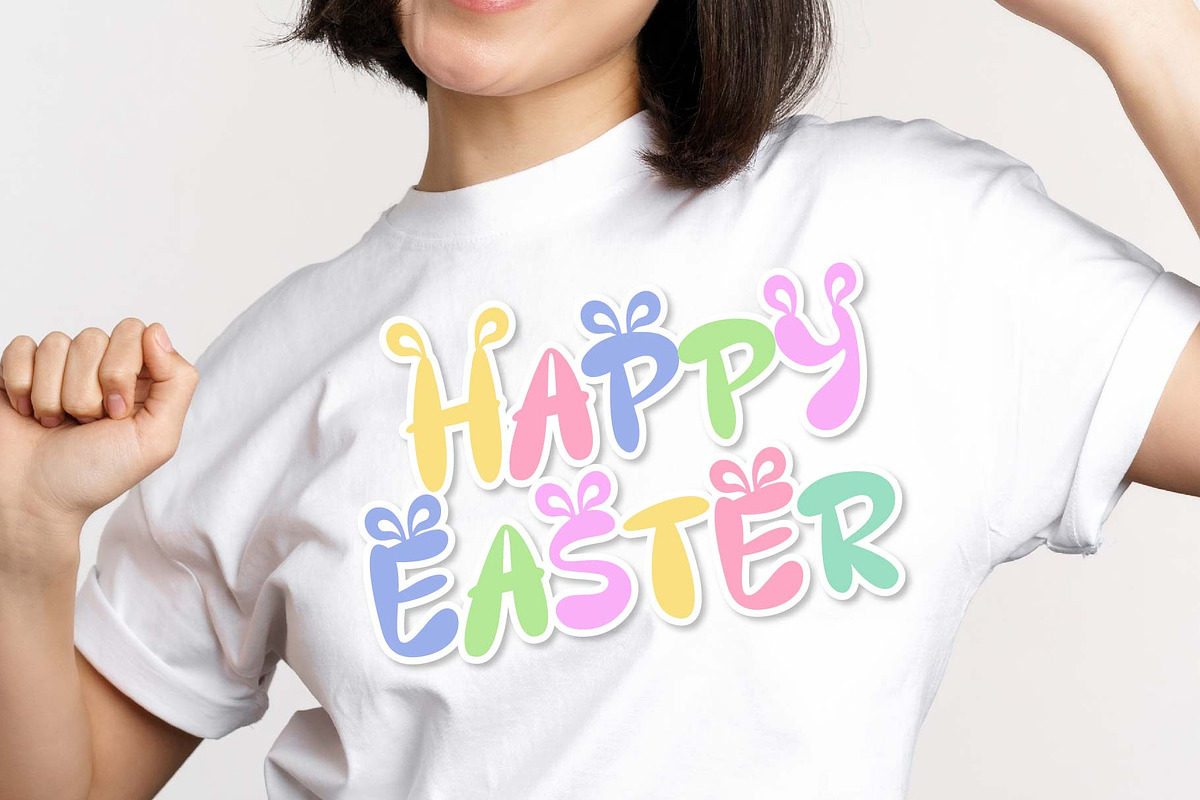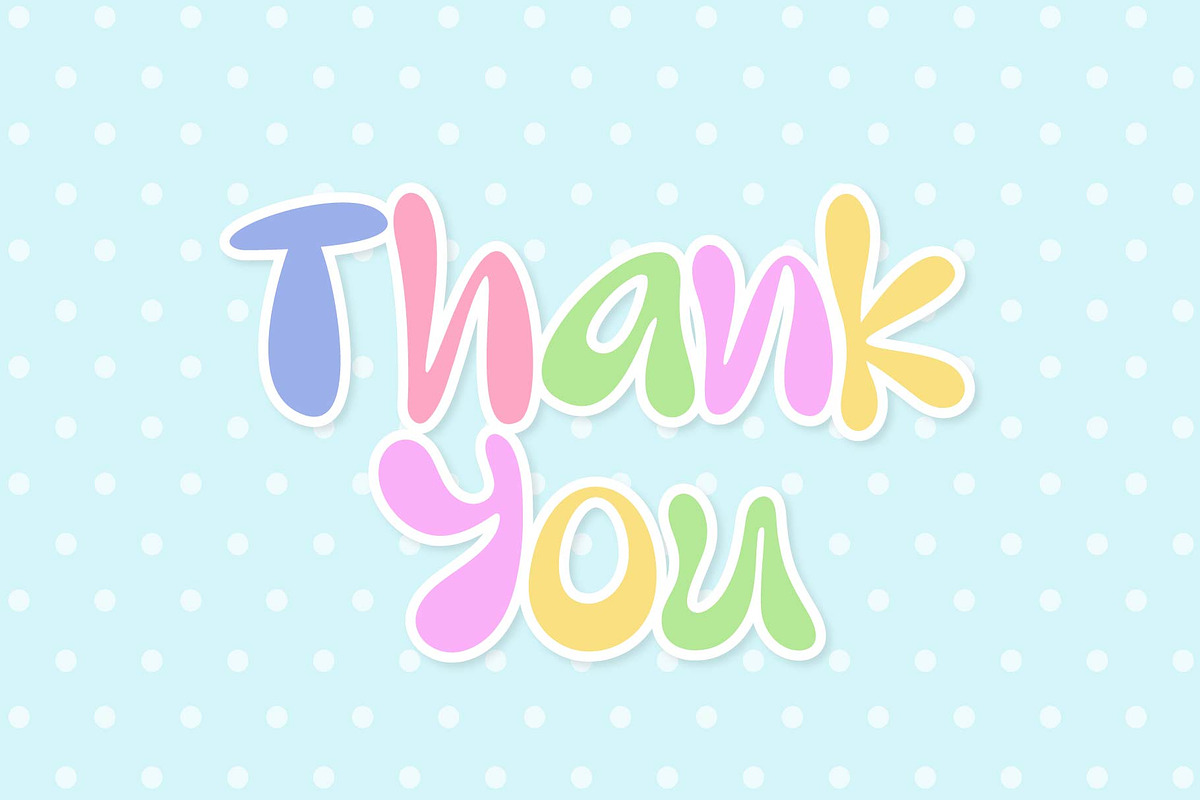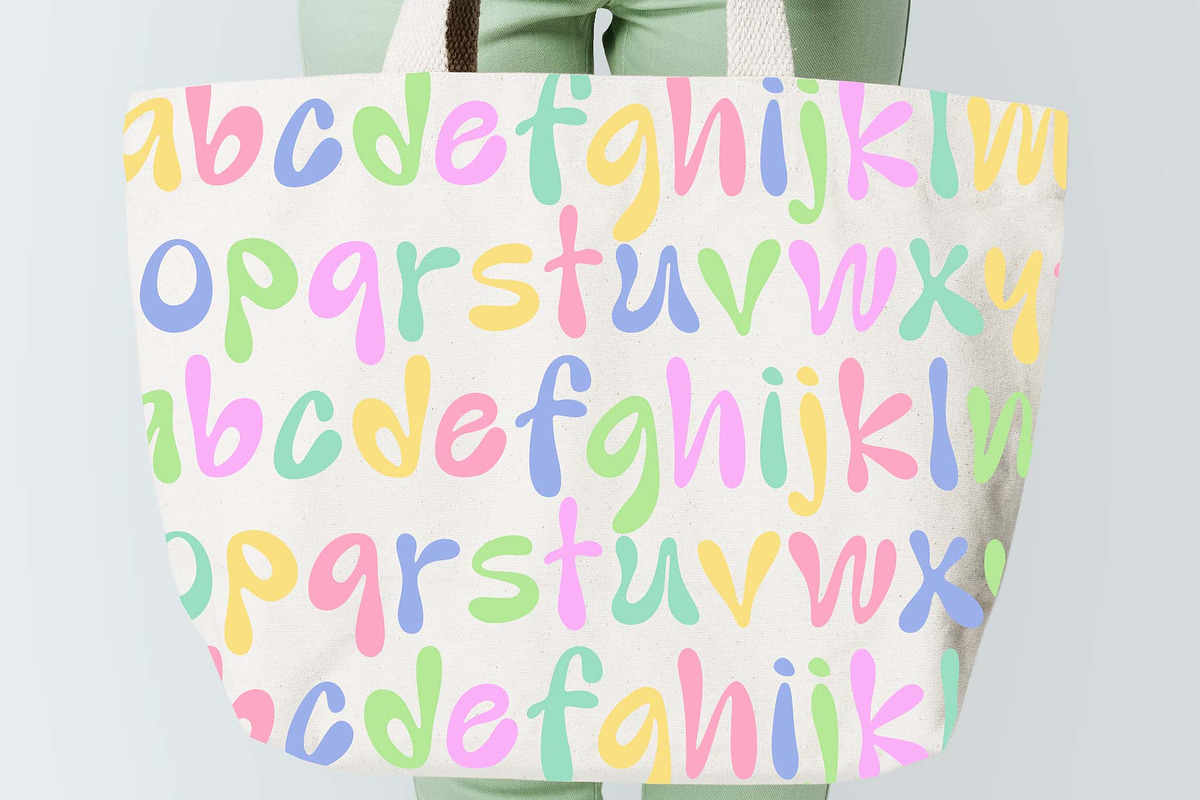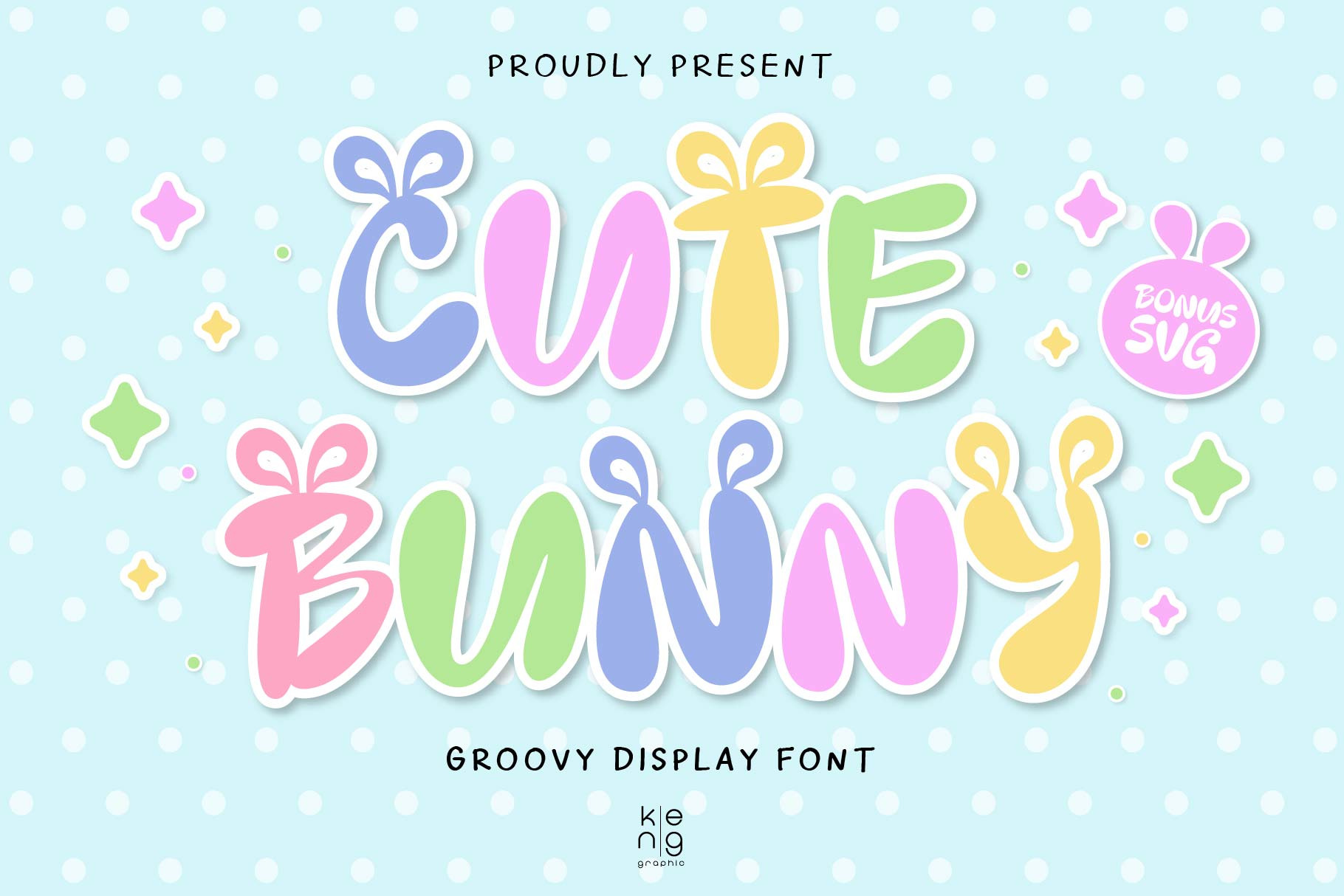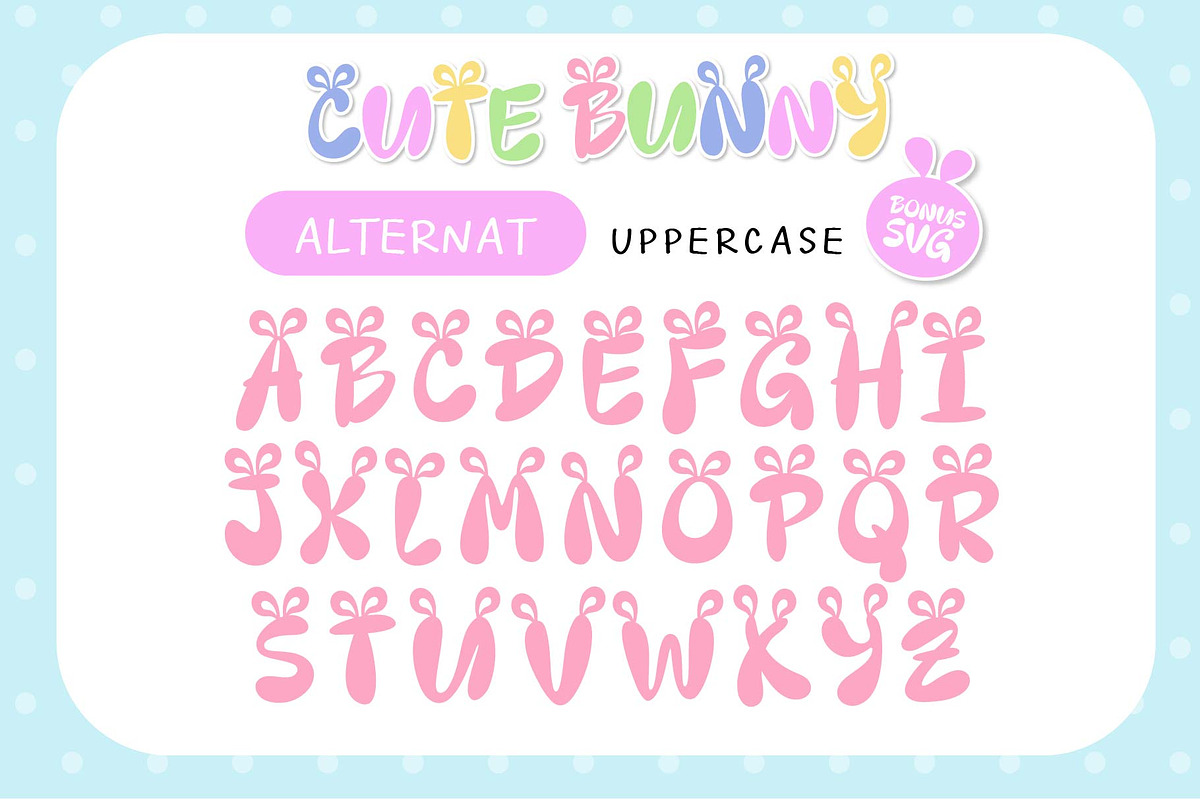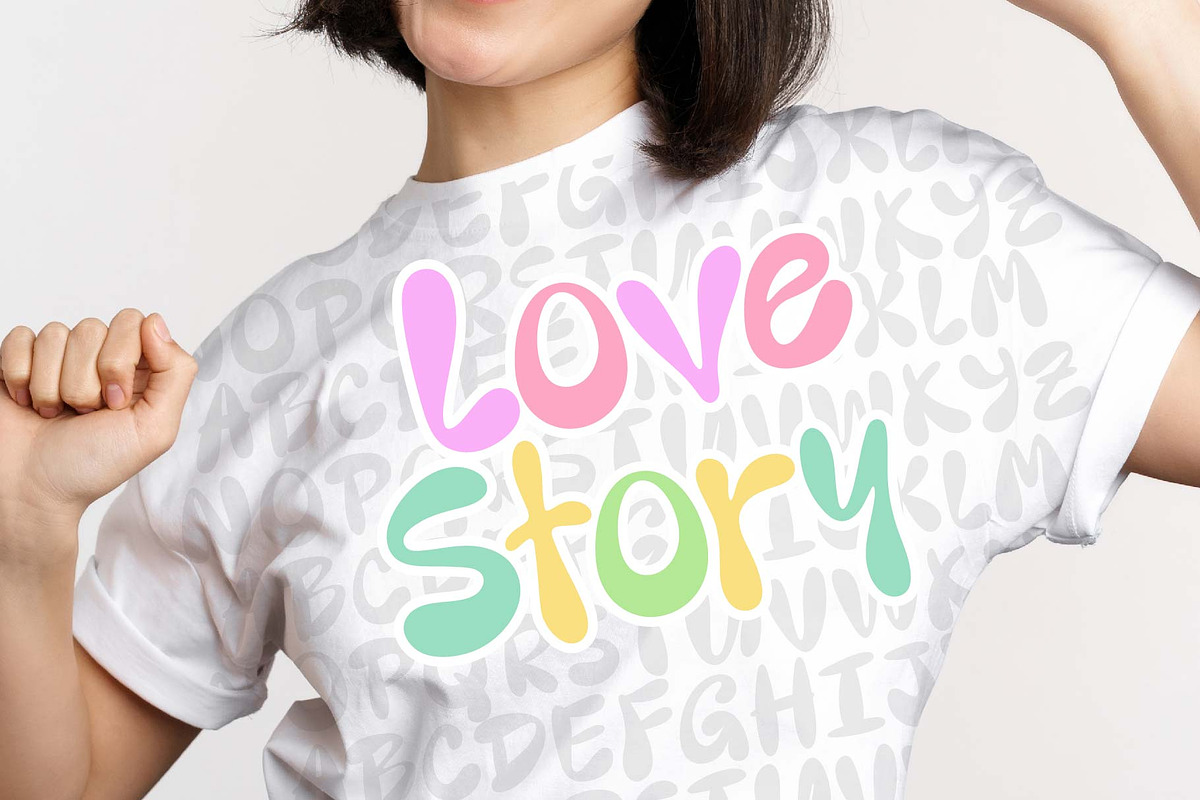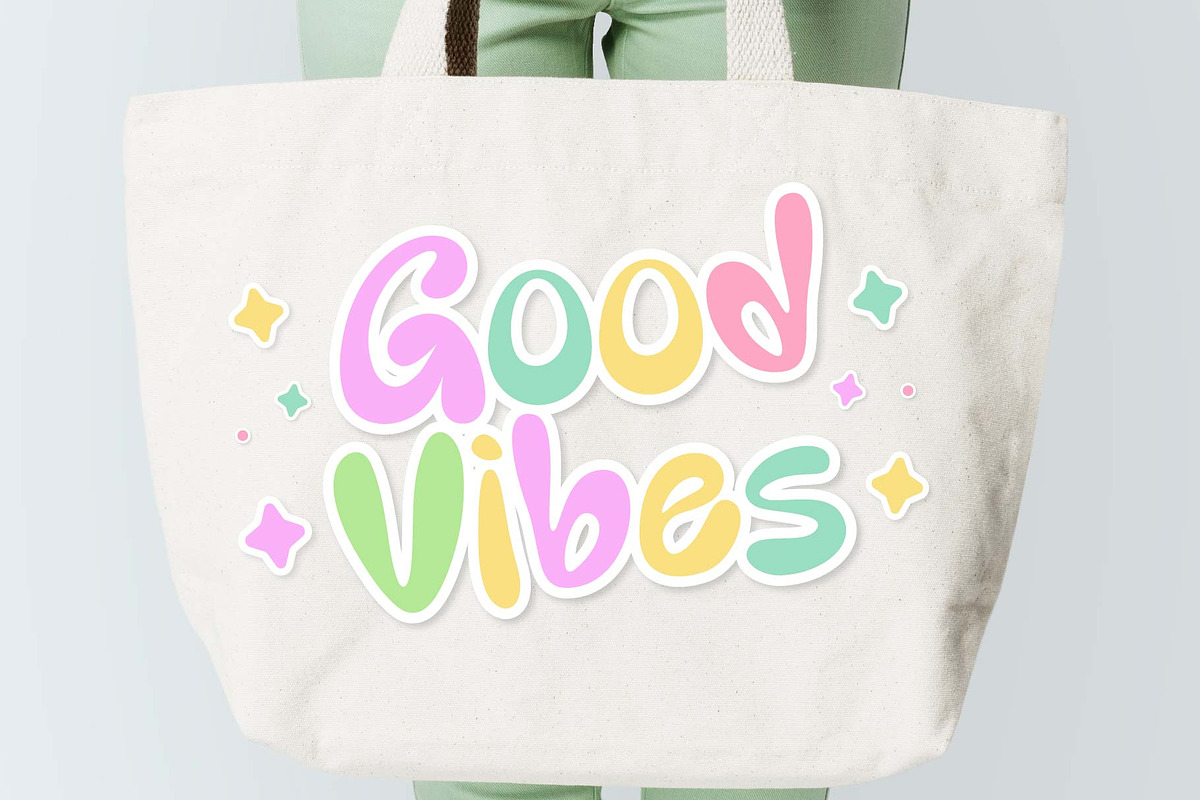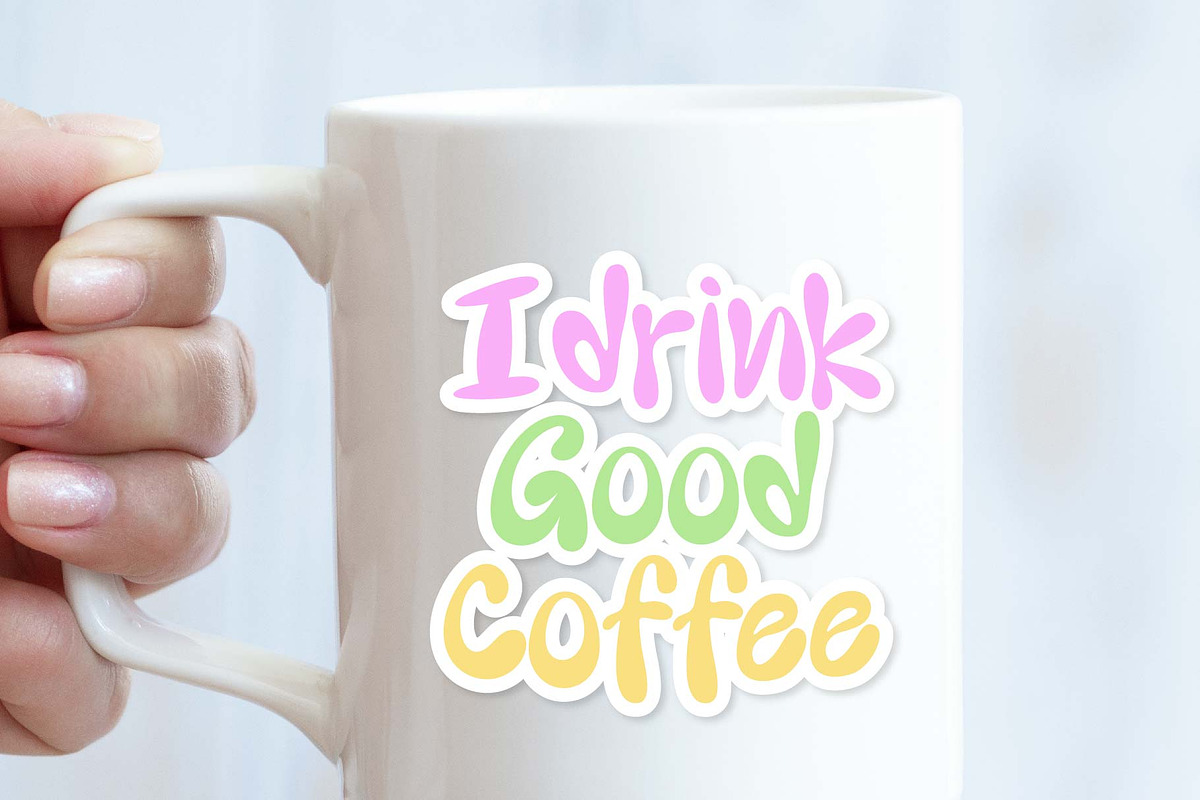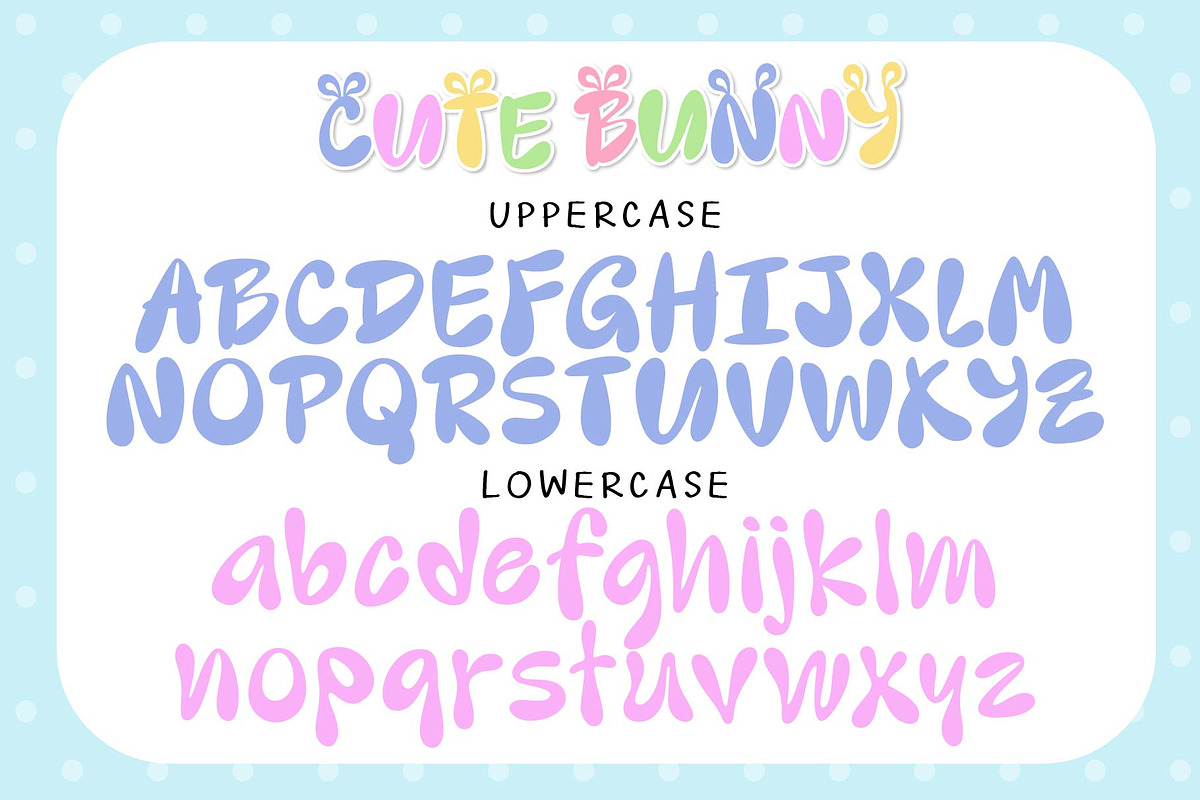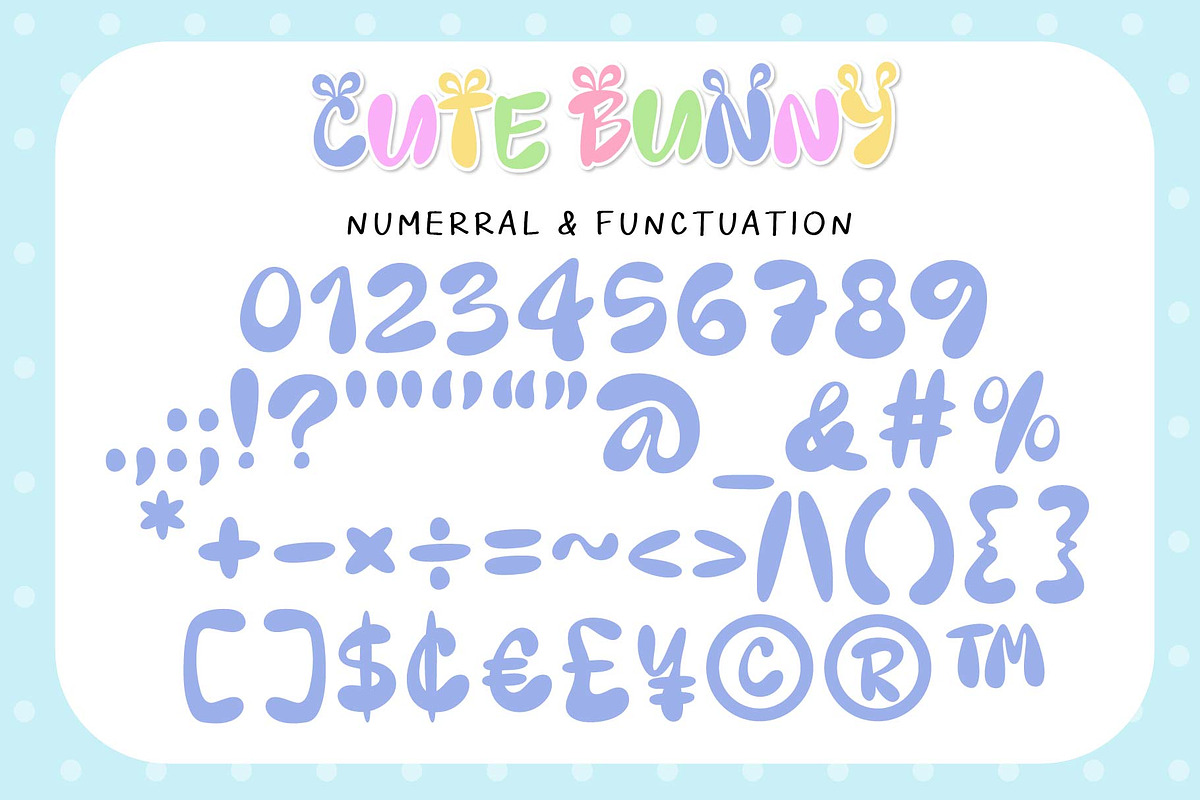
Cute Bunny Font
Introducing Cute Bunny, a delightfully charming font inspired by the innocence and joy of baby bunnies. Its groovy and adorable aesthetic is perfect to add a refreshing quirk to any design. Whether you’re creating for a t-shirt, tote bag, or a casual coffee mug, Cute Bunny effortlessly infuses a playful, bubbly appeal into everything it touches. Make your designs spring to life with the youthful exuberance of Cute Bunny. Discover the magic it brings to your world!